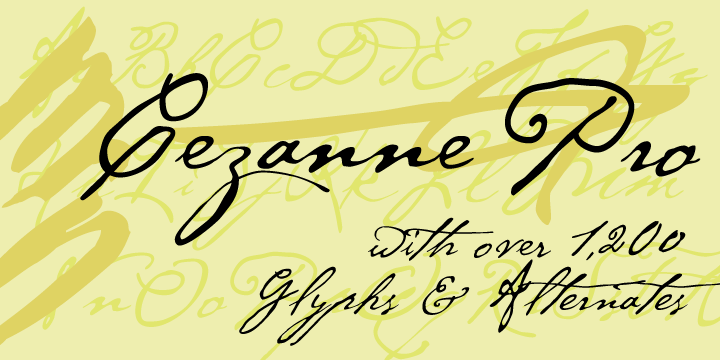
This font set, created for the Philadelphia Museum of Art, celebrates the work of influential French artist Paul Cézanne. P22’s Cezanne font allows you to beautify your documents with a faithful rendition of the artist’s handwriting, while Cezanne Sketches recreates a variety of imagery from the artist’s work.